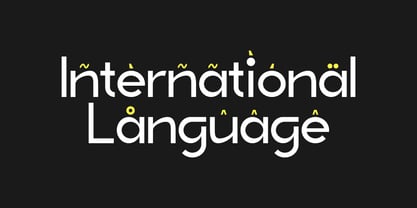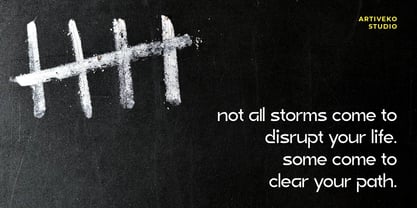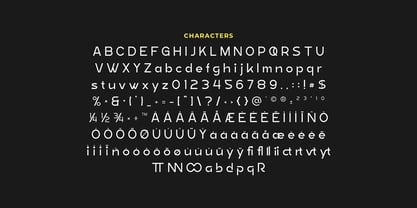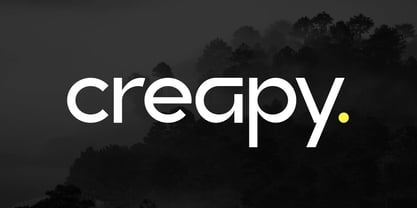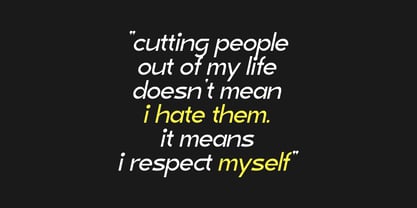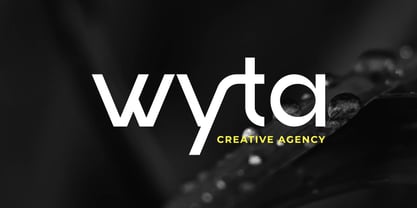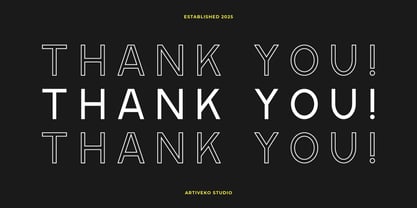
Creapy
by Artiveko
The Creapy Font Family was designed by Iwan Alwan and published by Artiveko. Creapy contains 2 styles and family package options. More about this family
Creapy is a striking modern sans serif font designed to break the rules and command attention. With quirky shapes, bold structure, and a playful yet edgy vibe, Creapy is perfect for branding, posters, headlines, streetwear, album covers, and anything that craves a bold and unforgettable identity.
Its experimental spirit lives in every curve and corner — delivering strong visual impact while keeping clean readability. Creapy includes uppercase and lowercase letters, multilingual support, and a set of creative ligatures and stylistic alternates that let your typography stand out with originality.
Whether you're building a rebellious brand or designing bold visuals for digital or print, Creapy adds character, contrast, and a touch of chaos in the best way possible. Step away from the ordinary — with Creapy, the creative sans serif that dares to be different.